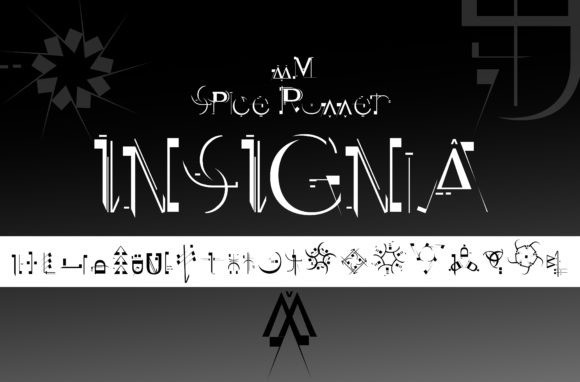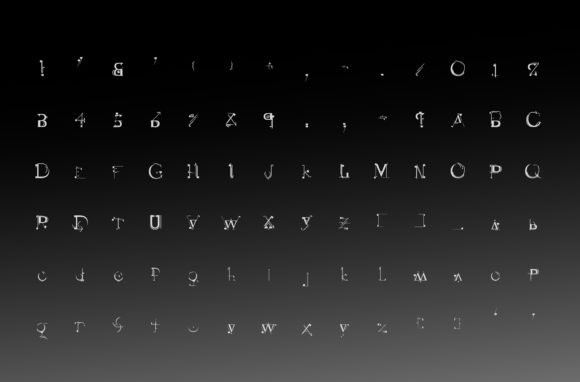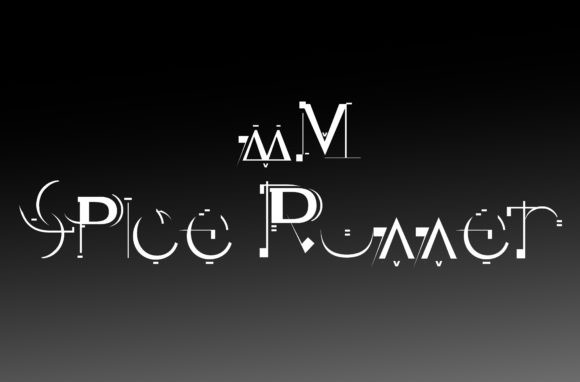
MM Spice Runner Font
MM Spice Runner Font is a futuristic display font, featuring a decorative alphabet and a collection of insignia. Inspired by sci-fi movies, space travel, and gritty wild west is a great option for your creative projects that dream of faraway galaxies.